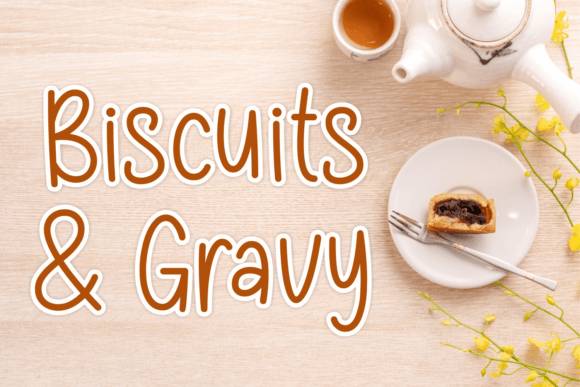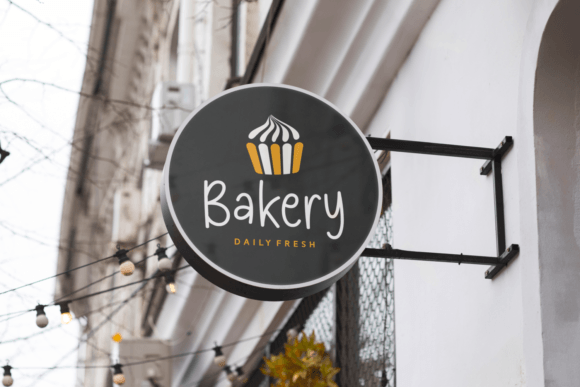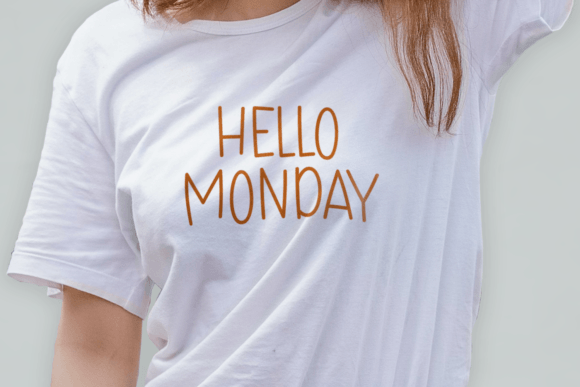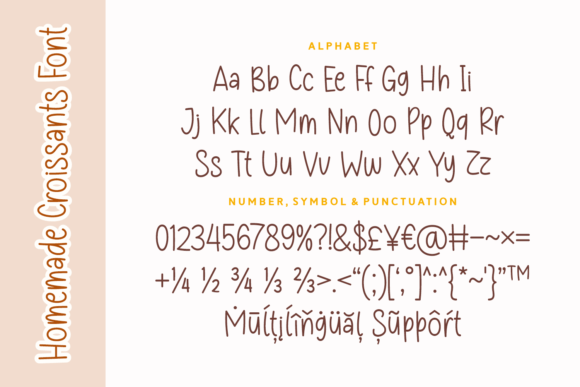
Introduction to Homemade Croissants Font
“Homemade Croissants” is a modern handwritten typeface.
With its minimalist and easy-to-read design, Homemade Croissants works well across a variety of projects, from branding and social media graphics to invitations, logos, and everyday print materials Its modern, clean aesthetic suits both professional and creative contexts.
Key Features of Homemade Croissants Font